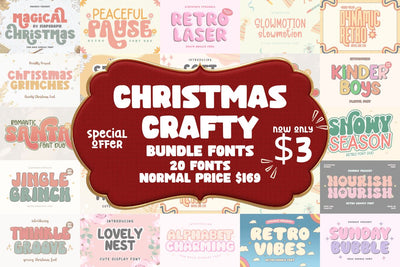
Christmas Crafty Fonts Bundle
Christmas Crafty Bundle Fonts
Get into the holiday spirit with the Christmas Crafty Fonts Bundle!
This bundle includes 20 unique and playful Christmas-themed fonts, perfect for creating festive designs.